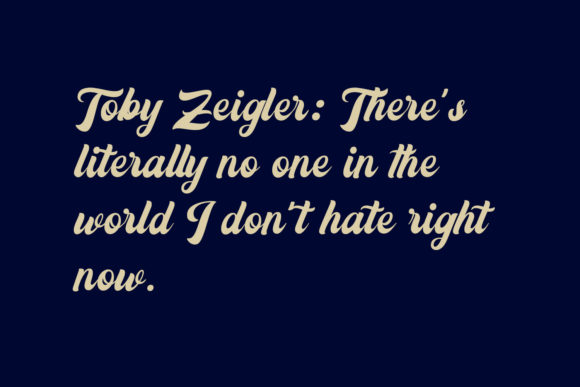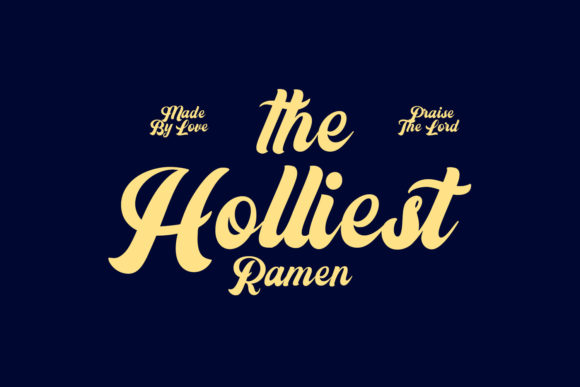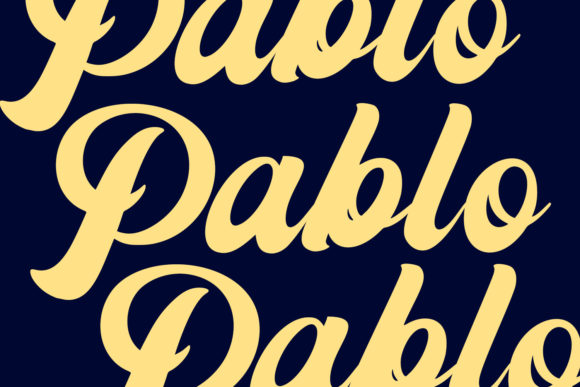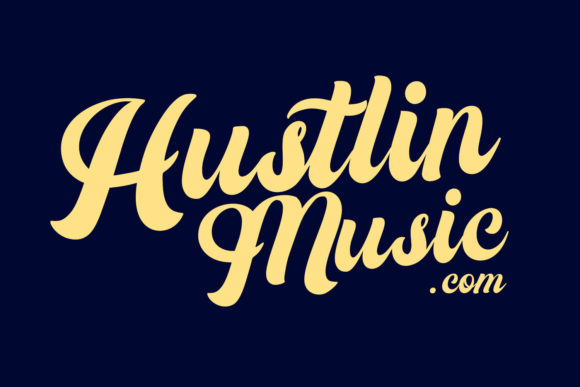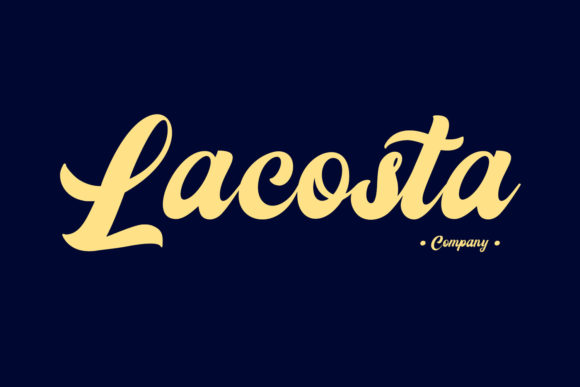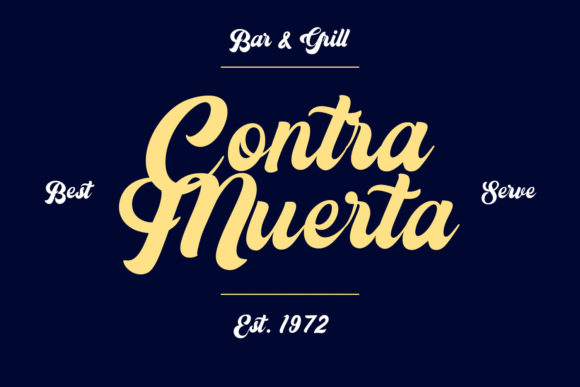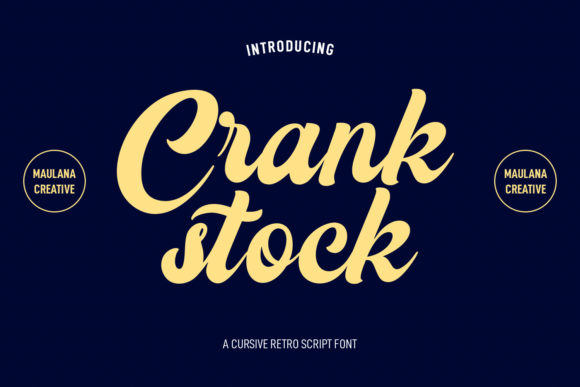
Introducing Crankstock Font: Elevate Your Designs with a Touch of Vintage Elegance
Are you on the hunt for a font that adds a dash of vintage charm to your design projects? Look no further than Crankstock Font. This stunning script font is designed to bring a touch of elegance and sophistication to your work, making it perfect for designers and crafters alike. With its bold contrast strokes, fun characters, ligatures, and alternates, Crankstock is sure to become your go-to font for a wide range of projects.
What Makes Crankstock Font So Special?
Crankstock Font is a gorgeous and vintage script font that boasts a unique combination of features that set it apart from other fonts on the market. Here are just a few of the things that make Crankstock so special:
- Bold Contrast Strokes: Crankstock’s bold contrast strokes give it a distinctive look that’s both elegant and eye-catching. Whether you’re using it for a logo, a headline, or a body of text, Crankstock is sure to make a statement.
- Fun Characters: Crankstock comes with a range of fun and quirky characters that add a touch of personality to your designs. From the elegant swashes to the playful alternates, Crankstock’s characters are sure to bring a smile to your face.
- Ligatures and Alternates: Crankstock also features a range of ligatures and alternates that allow you to customize your text to your heart’s content. Whether you want to create a flowing script or a bold, statement piece, Crankstock’s ligatures and alternates have got you covered.
Why Choose Crankstock Font?
So why should you choose Crankstock Font for your design projects? Here are just a few compelling reasons:
- Versatility: Crankstock is an incredibly versatile font that can be used for a wide range of projects, from logos and branding to packaging and advertising.
- Elegance: Crankstock’s vintage script style gives it a timeless elegance that’s perfect for designers who want to add a touch of sophistication to their work.
- Easy to Use: Despite its complex features, Crankstock is incredibly easy to use, even for designers who are new to script fonts.
How to Use Crankstock Font in Your Designs
Using Crankstock Font in your designs is easy. Here are a few tips to get you started:
- Pair it with a Sans Serif Font: Crankstock looks amazing when paired with a sans serif font. Try pairing it with a font like Arial or Helvetica for a bold, modern look.
- Use it for Headlines: Crankstock’s bold contrast strokes make it perfect for headlines and titles. Use it to grab attention and add a touch of elegance to your designs.
- Experiment with Ligatures and Alternates: Don’t be afraid to experiment with Crankstock’s ligatures and alternates. They can add a whole new level of depth and interest to your designs.